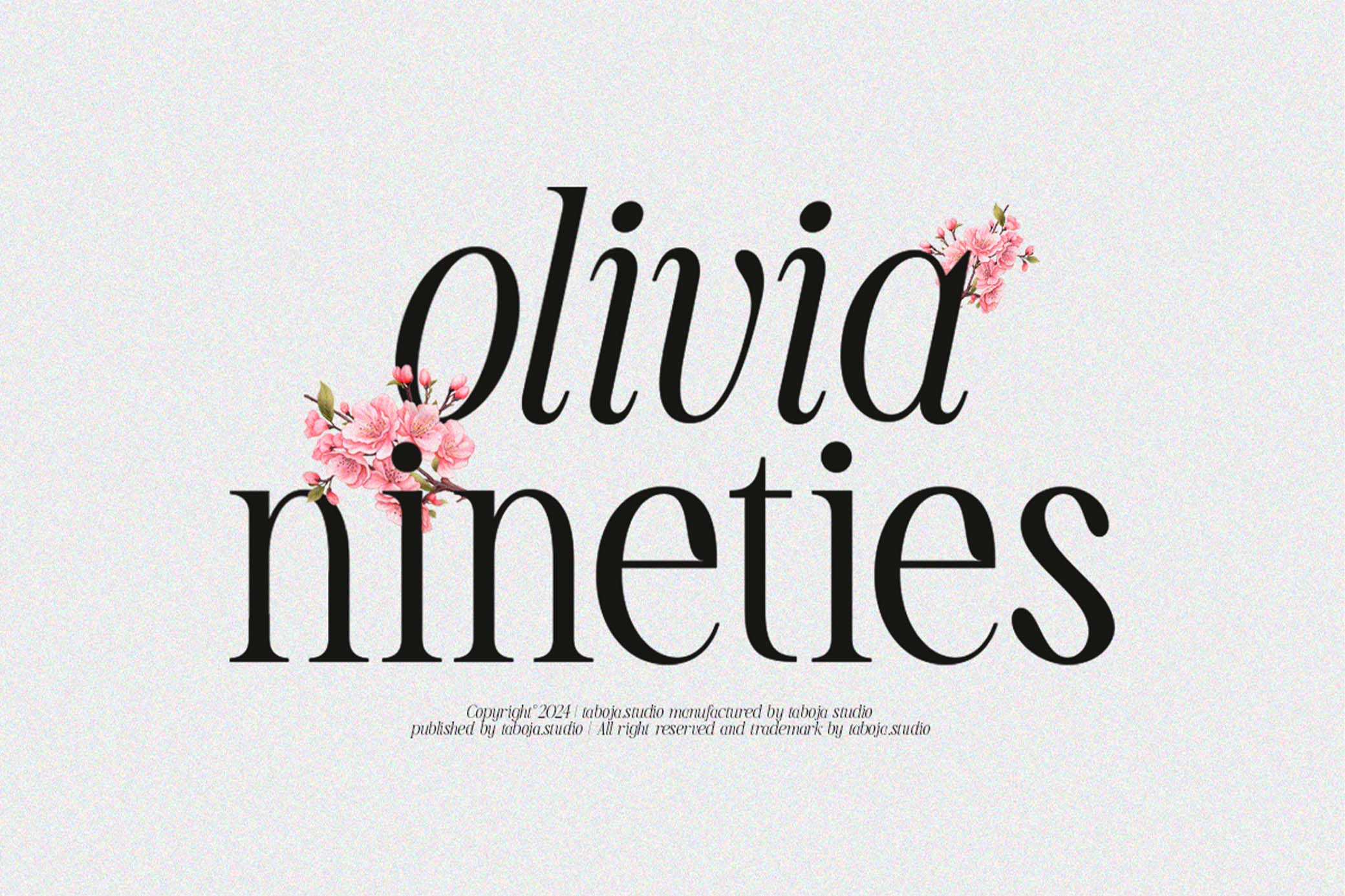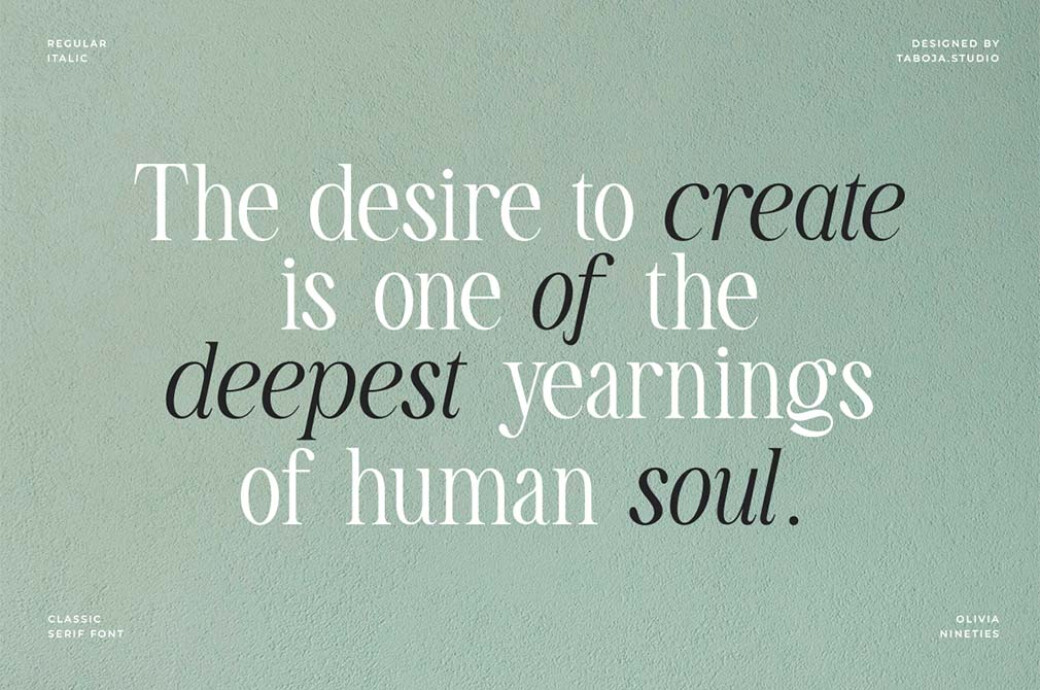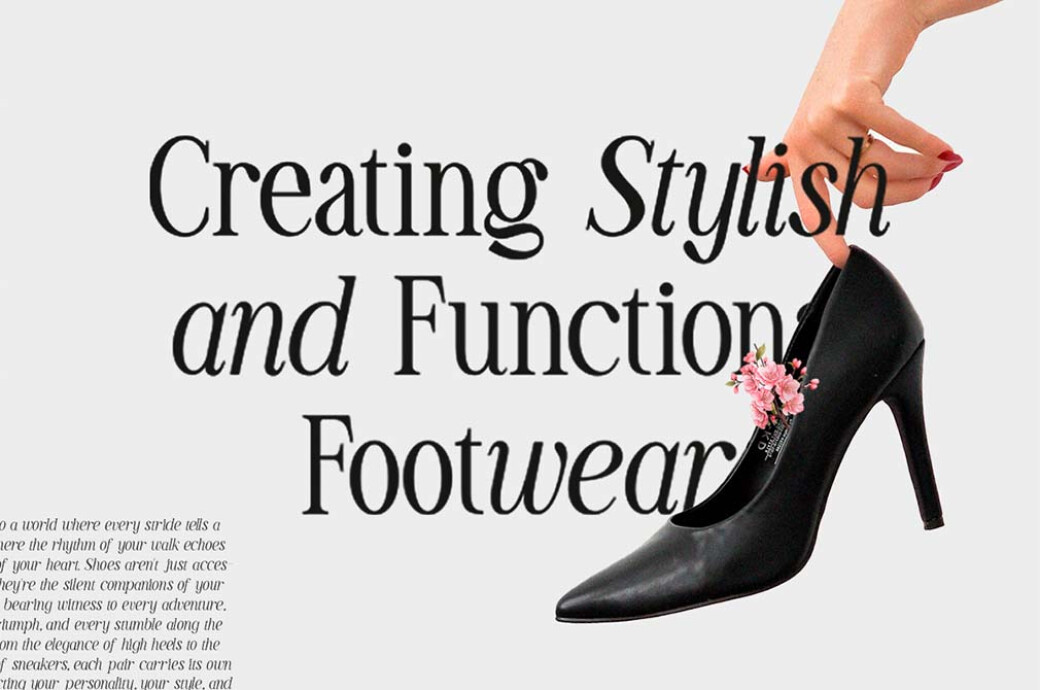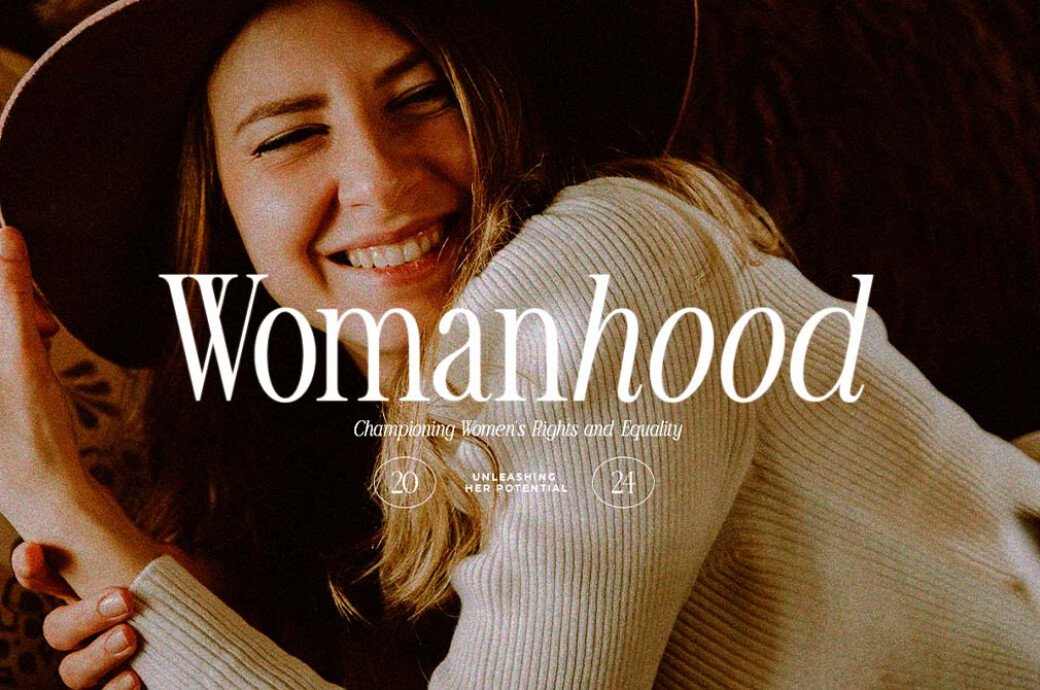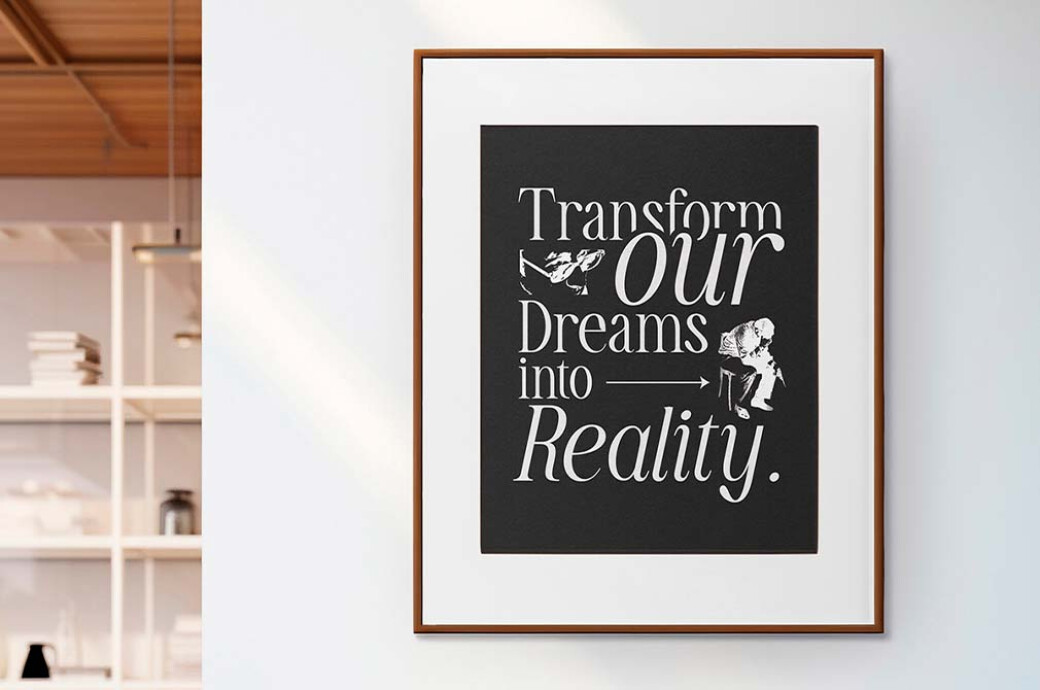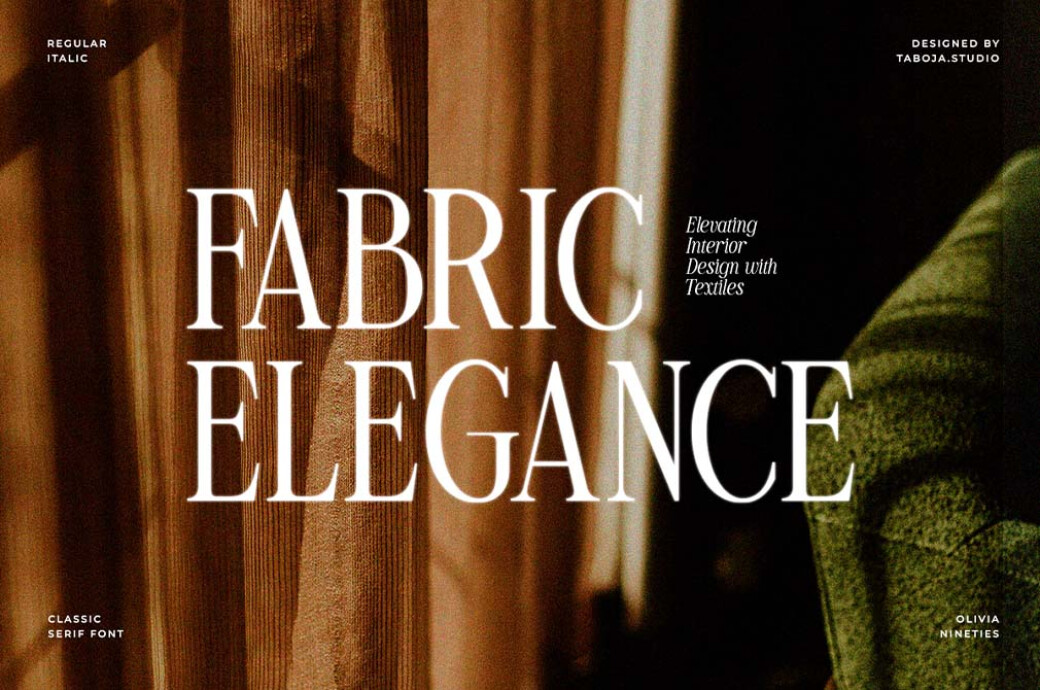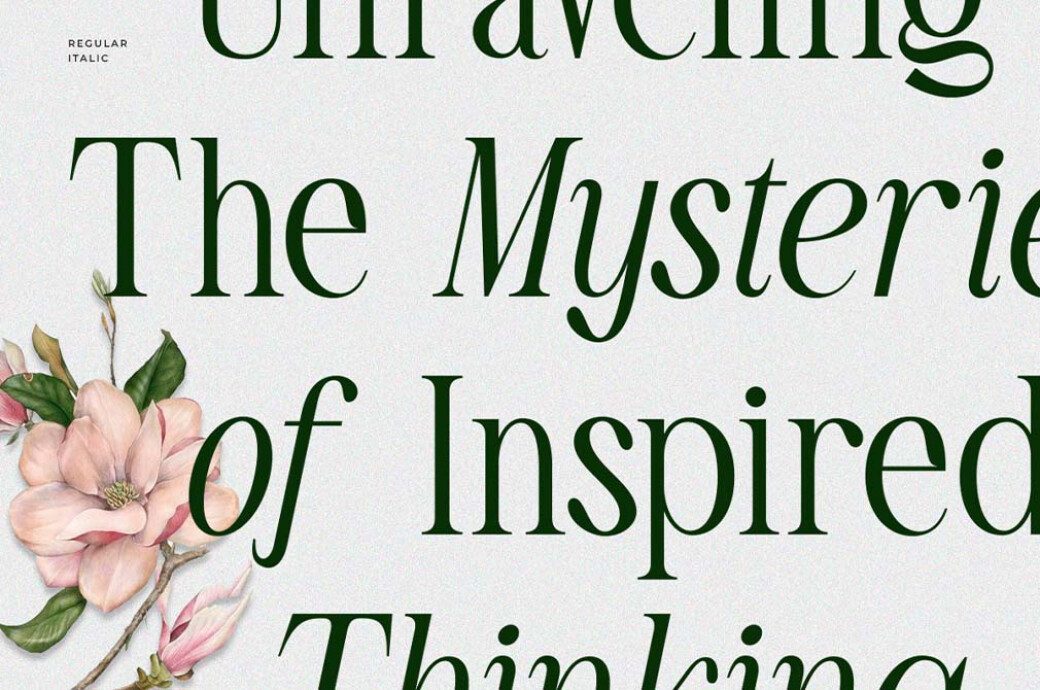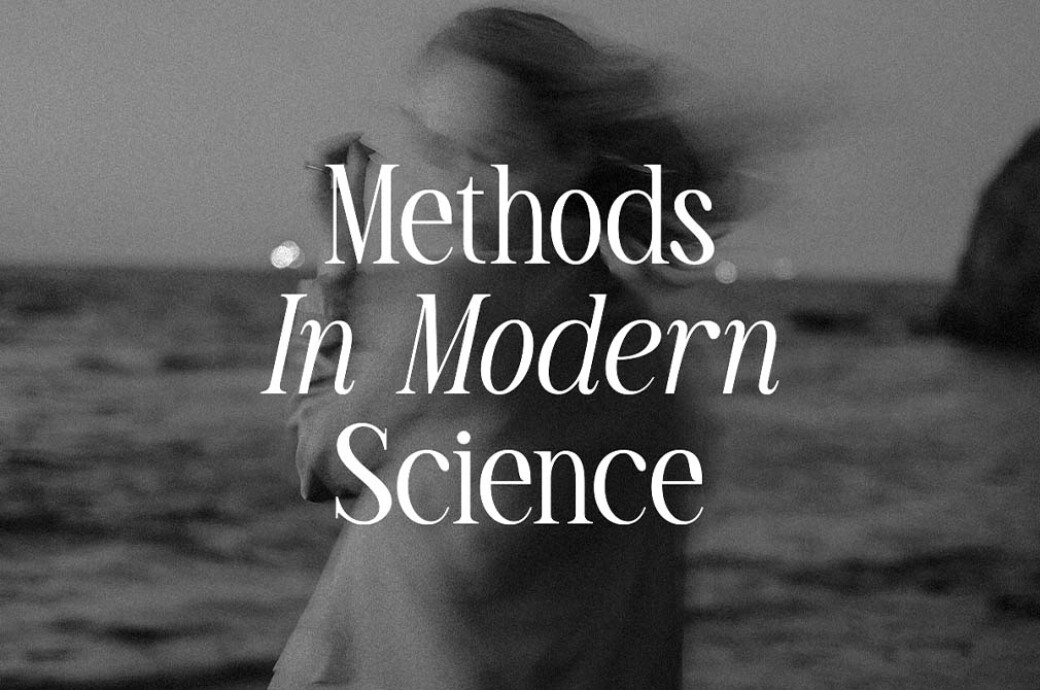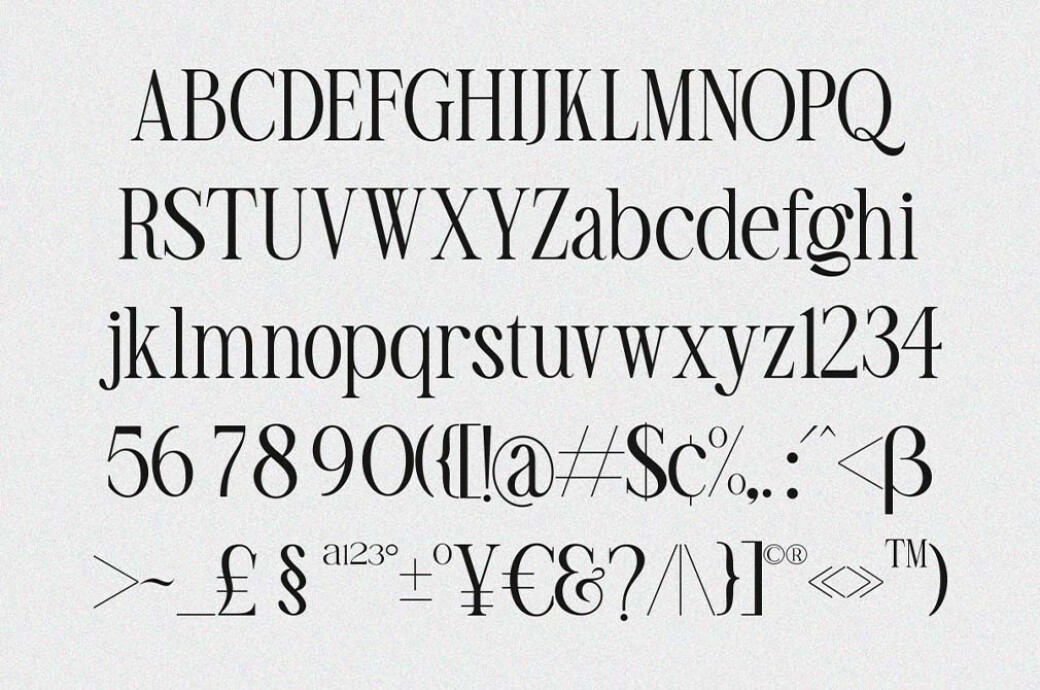
TBJ Olivia Nineties Classy Serif
Are you in your 90s era? If so, that's evident why you stopped to choose this font for your gentle and refined project — this epoch claims a page in design history. Indeed, the serif radiates authentic vintage energy in every stroke.
Olivia Nineties lawlessly embodies the exquisite ambiance from long-gone TV shows, cheesy romcoms, and teen magazines. Let’s admire the subtle sophistication of this serif for classy covers with headers written in uppercase and lowercase letters seasoned with numerals and punctuation. But in a foreign language it would have its own allure — the serif includes ligatures, accented characters, and multilingual support.